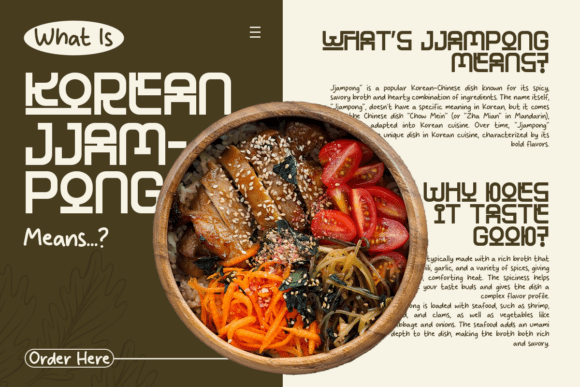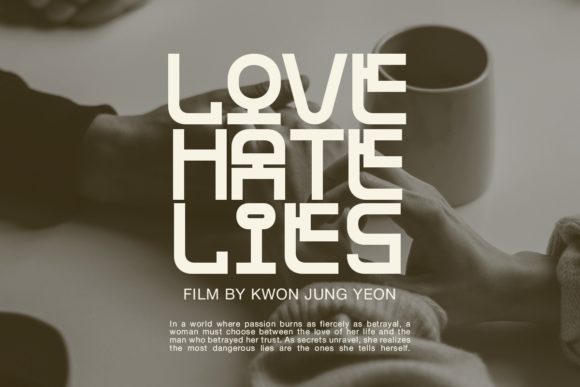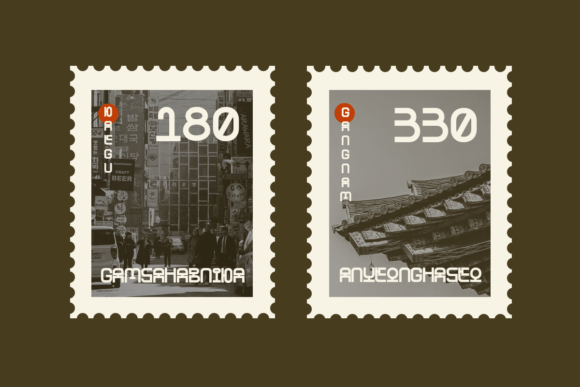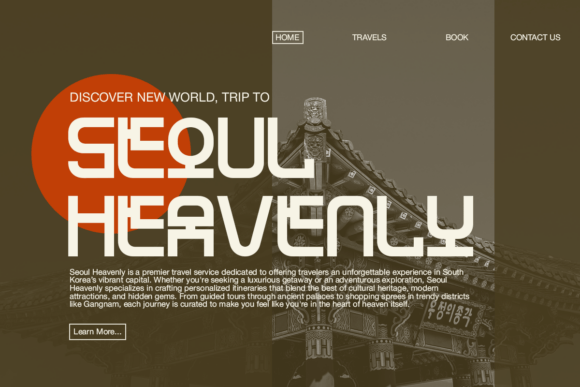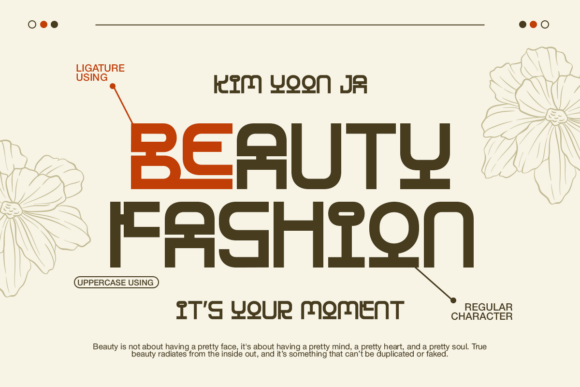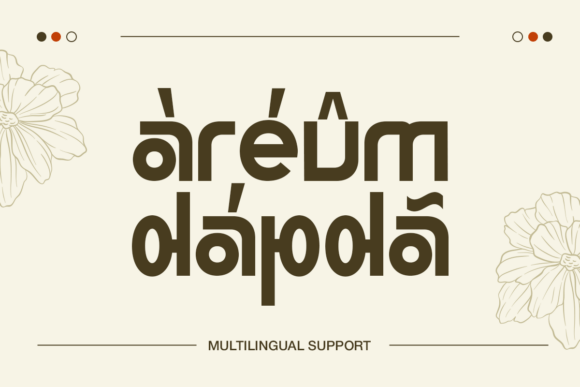
Hanjaku Namseo Font: A Traditional Korean Typeface with Modern Flair
In the world of typography, fonts play a crucial role in conveying the tone and aesthetic of a brand, product, or design. For designers and crafters looking for a unique and elegant font that embodies traditional Korean charm, Hanjaku Namseo is an excellent choice. This bold and refined Korean typeface seamlessly blends cultural heritage with modern sophistication, making it perfect for various design applications.
The Essence of Hanjaku Namseo
Hanjaku Namseo is a Korean typeface that exudes traditional elegance and poise. Its name is derived from the Korean language, with “Hanjaku” meaning “one character” and “Namseo” referring to a traditional Korean calligraphy style. This font’s design is deeply rooted in Korean cultural heritage, featuring gentle curves and subtle nuances that reflect the country’s rich history.
Hanjaku Namseo boasts a distinctive design that sets it apart from other typefaces. Its key characteristics include:
- Bold and Elegant: Hanjaku Namseo features a bold yet refined design, making it suitable for display purposes and headlines.
- Traditional Aesthetics: The font’s curves and strokes are inspired by traditional Korean calligraphy, giving it a unique cultural essence.
- Modern Flair: Despite its traditional roots, Hanjaku Namseo has a modern feel that makes it versatile for various design applications.
Use Cases for Hanjaku Namseo
Hanjaku Namseo’s versatility and cultural significance make it an excellent choice for various design projects, including:
- Korean-Themed Branding: Use Hanjaku Namseo to create authentic and captivating brand identities that resonate with Korean culture.
- Traditional Event Invitations: Add a touch of elegance and sophistication to traditional event invitations, such as weddings, festivals, or ceremonies.
- Cultural Posters: Create eye-catching posters that showcase Korean heritage, history, or cultural events.
- Editorial Layouts: Use Hanjaku Namseo to add a unique and stylish touch to editorial layouts, such as magazine articles, blogs, or newspapers.
- Elegant Product Packaging: Elevate product packaging with a sophisticated and culturally rich font that reflects Korean tradition.
Why Choose Hanjaku Namseo?
For designers and crafters seeking a unique display font with a stylish, refined, and culturally rich character, Hanjaku Namseo is an excellent choice. Here are some reasons why:
- Unique Cultural Essence: Hanjaku Namseo offers a distinct cultural flavor that sets it apart from other typefaces.
- Versatility: This font is suitable for various design applications, from branding and advertising to editorial and packaging design.
- Elegance and Sophistication: Hanjaku Namseo’s bold yet refined design makes it perfect for creating elegant and sophisticated designs.
Hanjaku Namseo is a remarkable Korean typeface that embodies traditional charm and modern sophistication. Its elegant curves, cultural essence, and versatility make it an excellent choice for designers and crafters seeking a unique display font. Whether you’re working on Korean-themed branding, traditional event invitations, cultural posters, editorial layouts, or elegant product packaging, Hanjaku Namseo is sure to elevate your design to the next level.